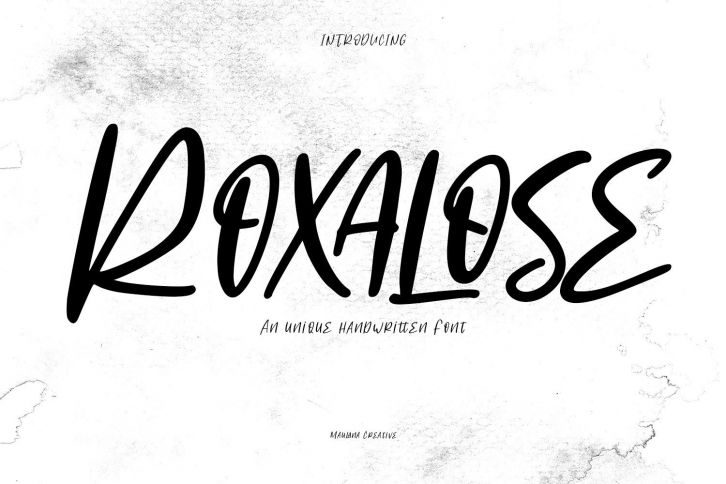
Roxalose is a fun and quirky handwritten script font. This original look will appeal to a wide range of crafty ideas, from letterheads and titles to stationery.